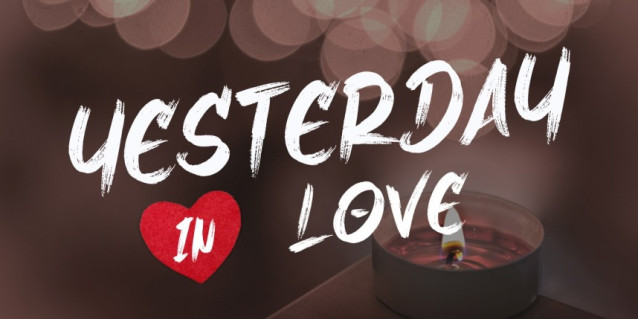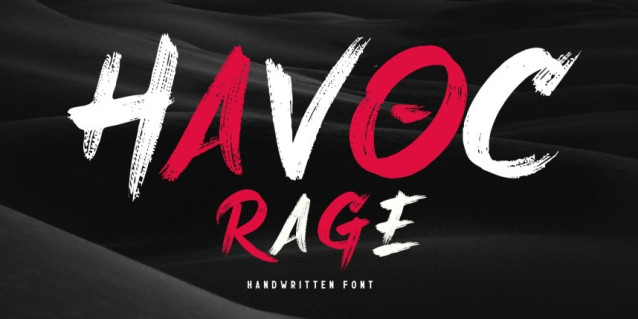
Havoc Rage Font
Havoc Rage Font is a dynamic and expressive typeface that captures the raw energy of hand-brushed strokes. With its natural, organic flow, this font exudes a sense of controlled chaos, making it perfect for designs that demand a bold and impactful statement. The brush strokes create an authentic, handmade feel, adding a touch of unruly creativity to your projects.